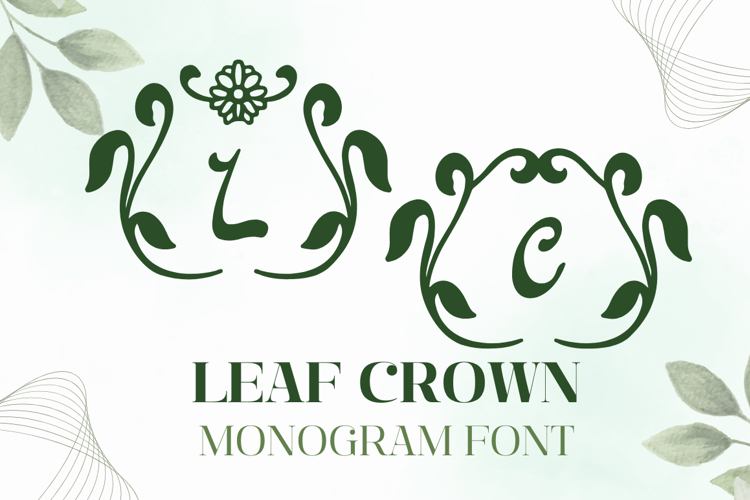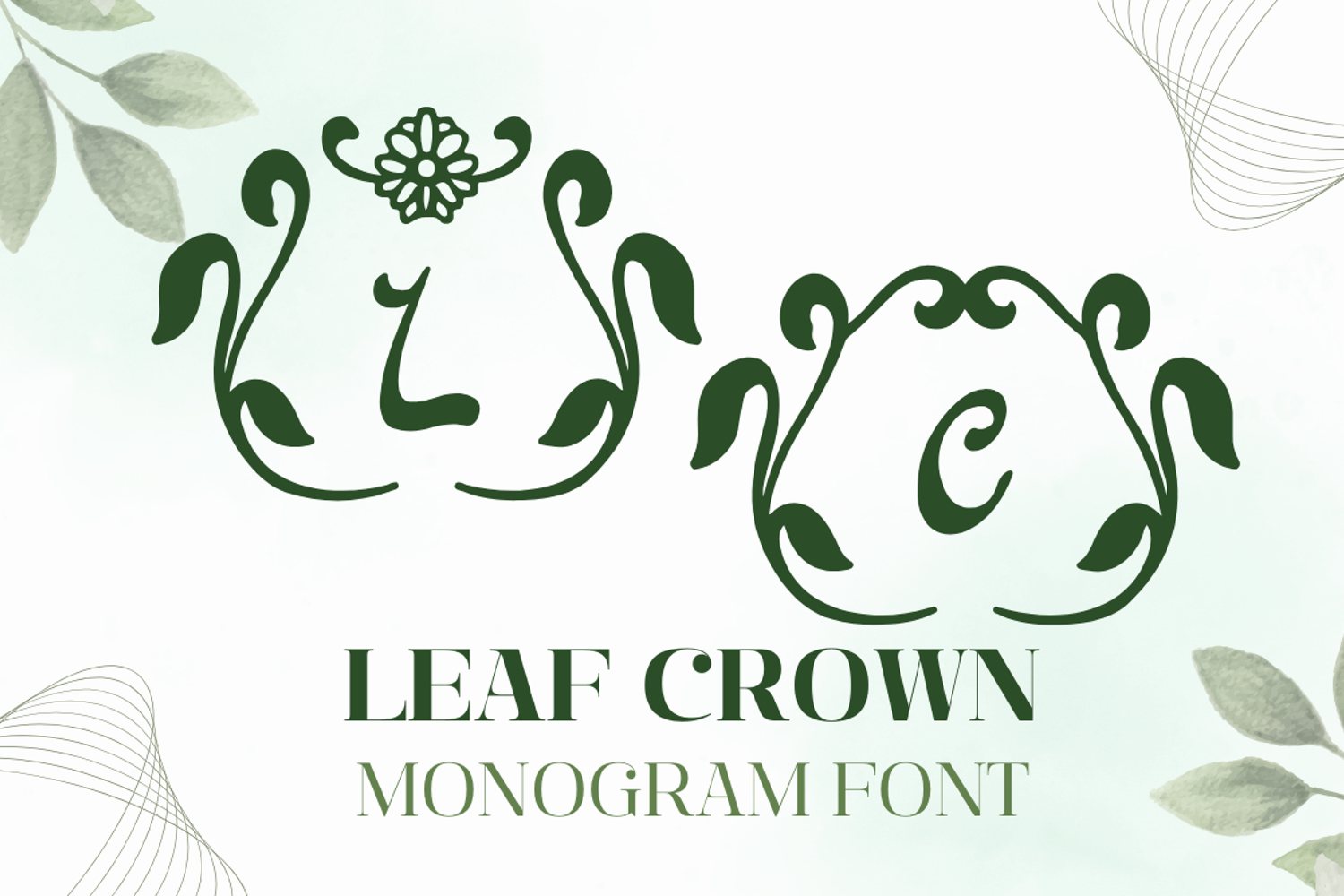
Leaf Crown Monogram Font is a nature-inspired monogram typeface built with flowing leaf scrolls and organic crowns. The set includes uppercase, lowercase, and numerals plus coordinated leafy monogram frames for instant one-letter marks.
Need a frame without a letter? Type “.” or “,” to insert the Monogram Frame Without Letter, then add your custom initial later in your design app. The font converts to crisp vector outlines, scales cleanly from small labels to large signage, and works smoothly for cutting and print-then-cut workflows.